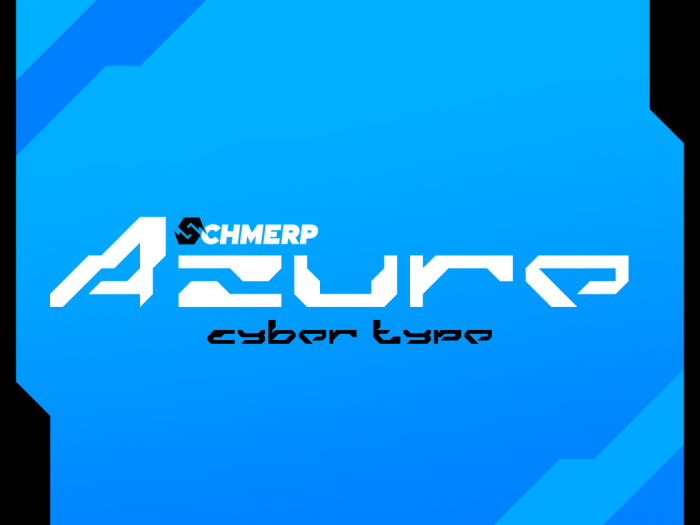
• Azure a high tech typeface. Inspired by everything Cyberpunk and future tech.
This is my first font, and it's still a little out of place. I'll continue to experiment, and try to improve on using this site. I hope you all like it!